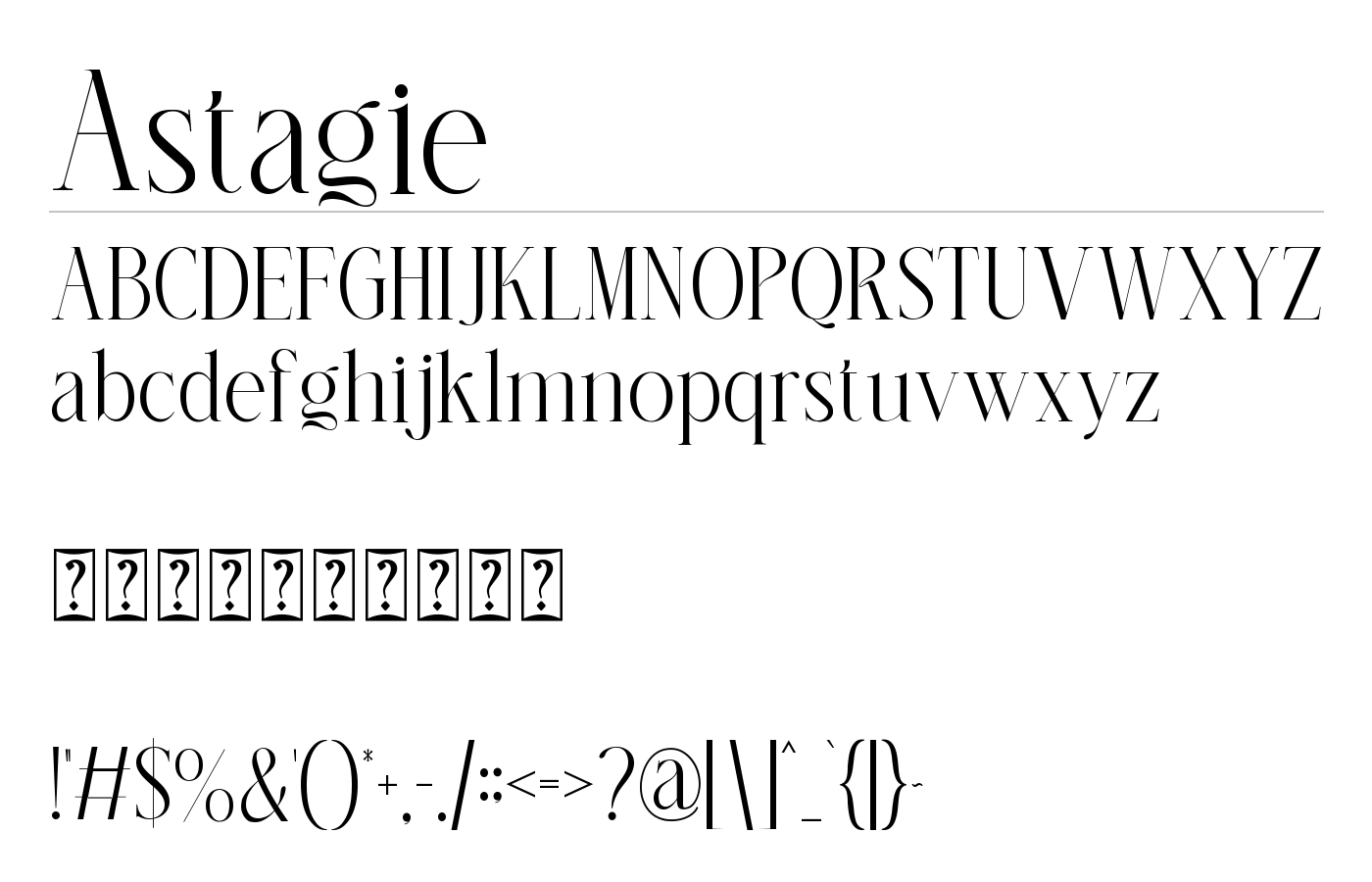
Astagie is a refined serif font with a graceful, high-contrast design that combines elegant thin strokes and charming bracketed serifs. Its tall, slender letterforms and distinctive details, like double-story ‘g’ and unique ‘Q’ tail, give it a sophisticated, classic feel perfect for luxury branding, editorial headlines, and fashion-focused projects. This font works well where a touch of style and elegance is needed to convey professionalism and timeless beauty.
Astagie Font
About Astagie Font